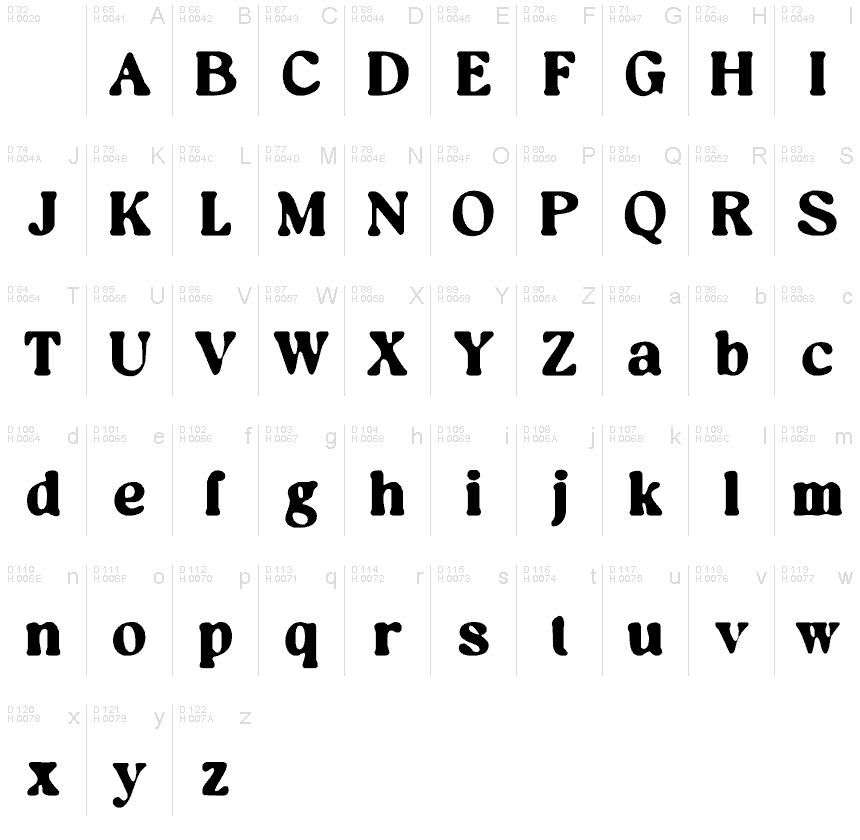
Helavite Blur font by Craft Supply Co. captures enchanting vintage aesthetics with its distinct personality. Every character in this bold display set enjoys its striking features which charm and attract viewers from first sight. With a combination of modern retro styles and artistic ornaments, the results of using this free serif font will be highly effective no matter the task.
Helavite Blur font has practical use in digital advertisements, printed marketing campaigns, social media posts, and packaging. It can also be applied to logos or for branding projects, t-shirt designs or other apparel projects, labels, book covers or interiors, poster designs, flyers…the possibilities are endless!